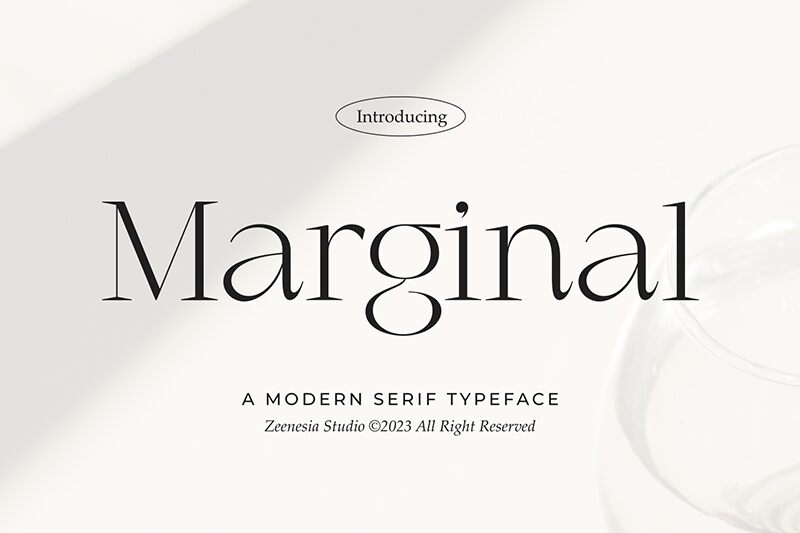
Marginal font by Zeenesia Studio is a free elegant serif typeface with a distinctly airy, fashion-forward presence. Its finely drawn strokes, razor-sharp curves, and generous white space give every word a refined, slightly dramatic tension-like ink pulled delicately across smooth paper. Letters feel tall and poised, delivering a sophisticated voice that’s confident without shouting.
Using Marginal, headlines and names instantly take on a couture, editorial feel, making this free font a natural fit for magazine covers, fashion branding, perfume or skincare packaging, luxe invitations, and minimalist posters or social graphics. It shines when set large, where the slim details can really breathe; pair it with a clean geometric sans in smaller text to keep layouts crisp and contemporary.